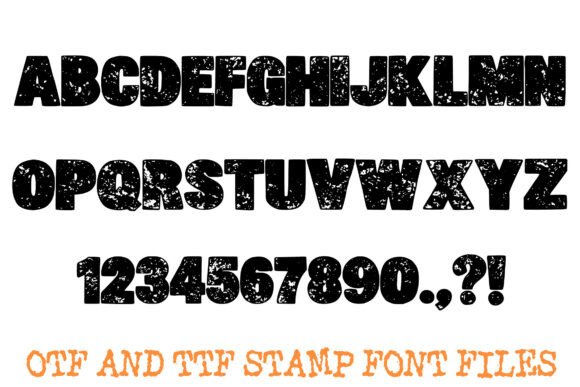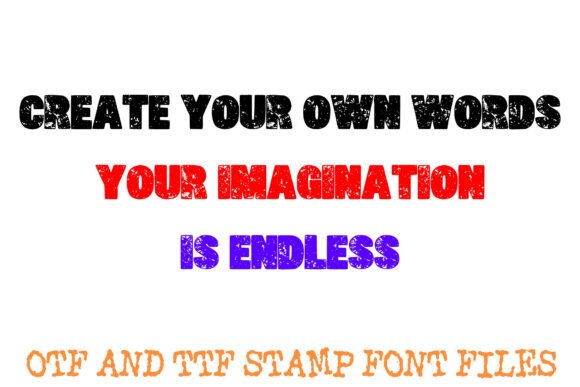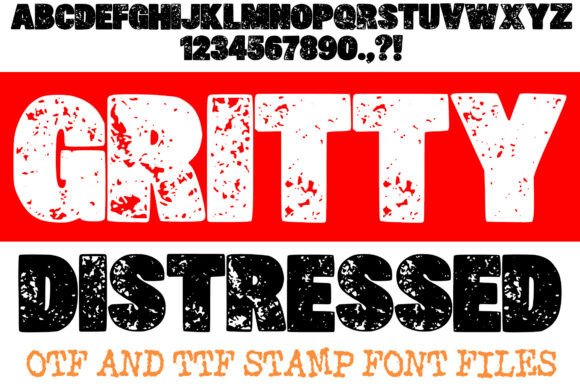
Unleash the Power of Imperfection: Introducing Gritty Distressed Stamp Font
Are you tired of sleek, polished designs that lack character? Do you want to add a touch of authenticity and tactility to your creative projects? Look no further than Gritty Distressed Stamp Font, a powerful and rugged typeface that captures the raw charm of old-school rubber stamps and imperfect print.
The Art of Imperfection
In an era of digital perfection, Gritty Distressed Stamp Font dares to be different. This bold, solid structure is filled with a rich, gritty texture that adds an immediate, handcrafted, and vintage appeal to any design. Each character is meticulously designed to mimic the worn edges and ink imperfections of a traditional stamp, creating a unique, authentic, and eye-catching look.
A Statement Piece for Your Designs
Gritty Distressed Stamp Font is more than just a font; it’s a statement piece. It’s perfect for designers and crafters who want to add a touch of personality to their work. Whether you’re aiming for a classic vintage aesthetic, an industrial grunge vibe, a DIY craft feel, or a distressed retro look, this font delivers with uncompromising style.
The versatility of Gritty Distressed Stamp Font is unmatched. It’s ideal for crafting impactful headlines, rustic logos, vintage-inspired posters, artisanal product packaging, and engaging social media graphics. This font ensures your message feels grounded, genuine, and full of character, making it perfect for a wide range of creative projects.
Key Features of Gritty Distressed Stamp Font
- Authentic, tactile character: Gritty Distressed Stamp Font captures the raw charm of old-school rubber stamps and imperfect print.
- Bold, solid structure: A rugged typeface with a rich, gritty texture that adds depth and character to your designs.
- Worn edges and ink imperfections: Each character is meticulously designed to mimic the imperfections of a traditional stamp.
- Vintage appeal: Adds an immediate, handcrafted, and vintage appeal to any creative project.
- Versatile: Perfect for a wide range of creative projects, from headlines and logos to posters and packaging.
Why Choose Gritty Distressed Stamp Font?
In a world where digital designs can look sterile and impersonal, Gritty Distressed Stamp Font offers a refreshing alternative. By incorporating this font into your designs, you’ll add a touch of authenticity and tactility that will set your work apart. Whether you’re a designer, crafter, or DIY enthusiast, this font is sure to become a staple in your creative toolkit.
Tips for Using Gritty Distressed Stamp Font
- Experiment with different colors: Try pairing the font with bold, bright colors to create a striking contrast.
- Mix and match with other fonts: Combine Gritty Distressed Stamp Font with other fonts to create a unique and eye-catching look.
- Play with texture and patterns: Add an extra layer of depth to your designs by incorporating texture and patterns.
Gritty Distressed Stamp Font is a powerful and versatile typeface that adds a touch of authenticity and tactility to any creative project. With its bold, solid structure and rich, gritty texture, this font is perfect for designers and crafters who want to add a touch of personality to their work. Whether you’re aiming for a classic vintage aesthetic or a distressed retro look, Gritty Distressed Stamp Font delivers with uncompromising style.